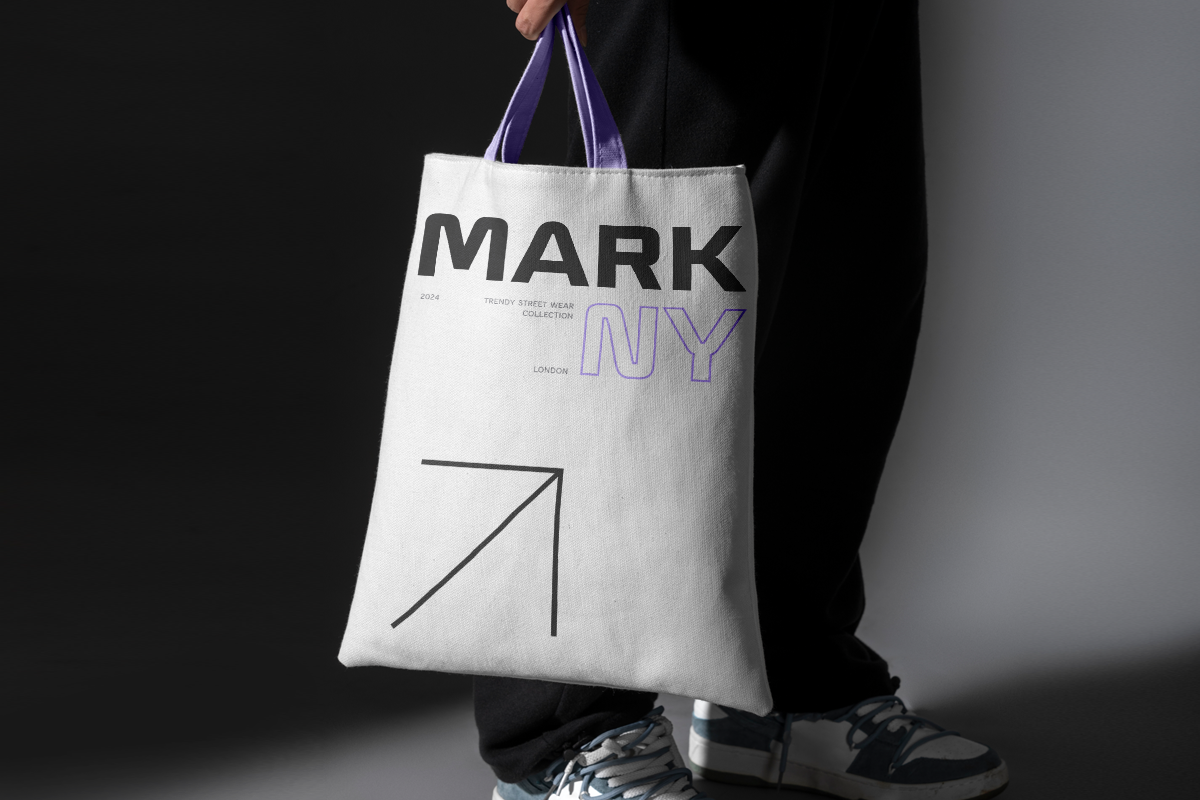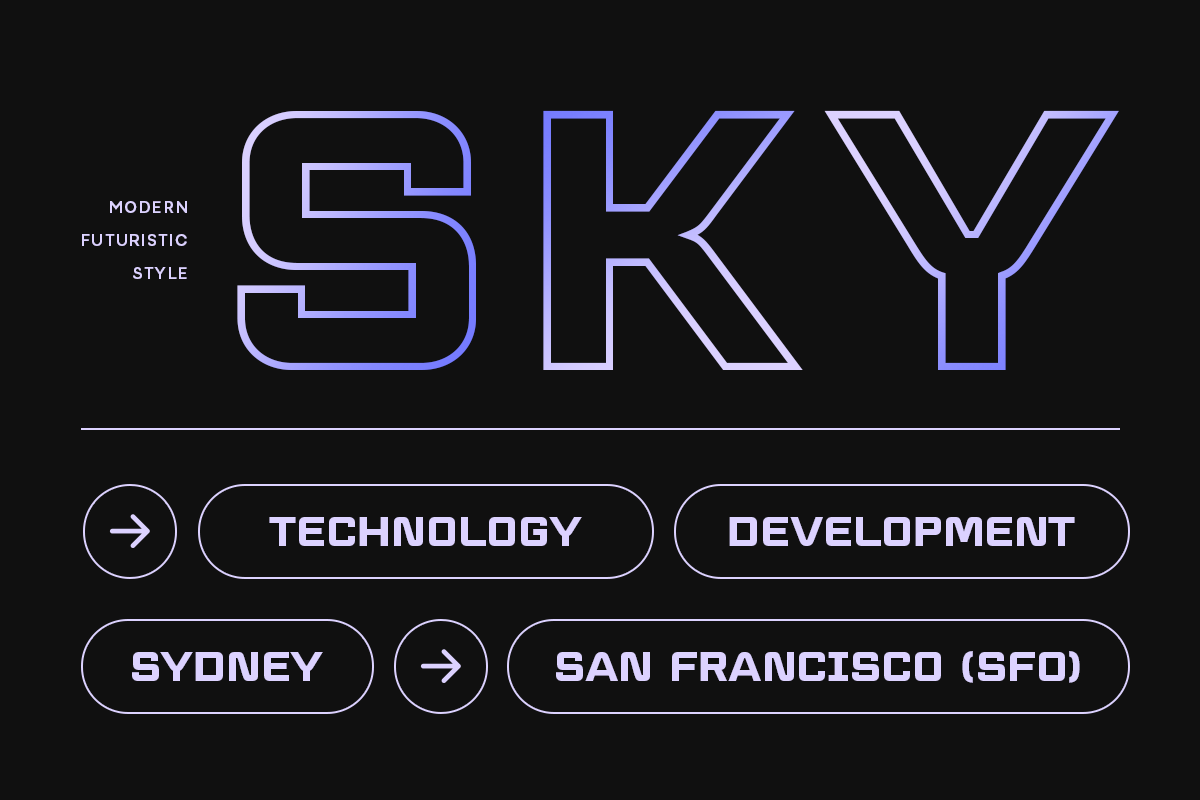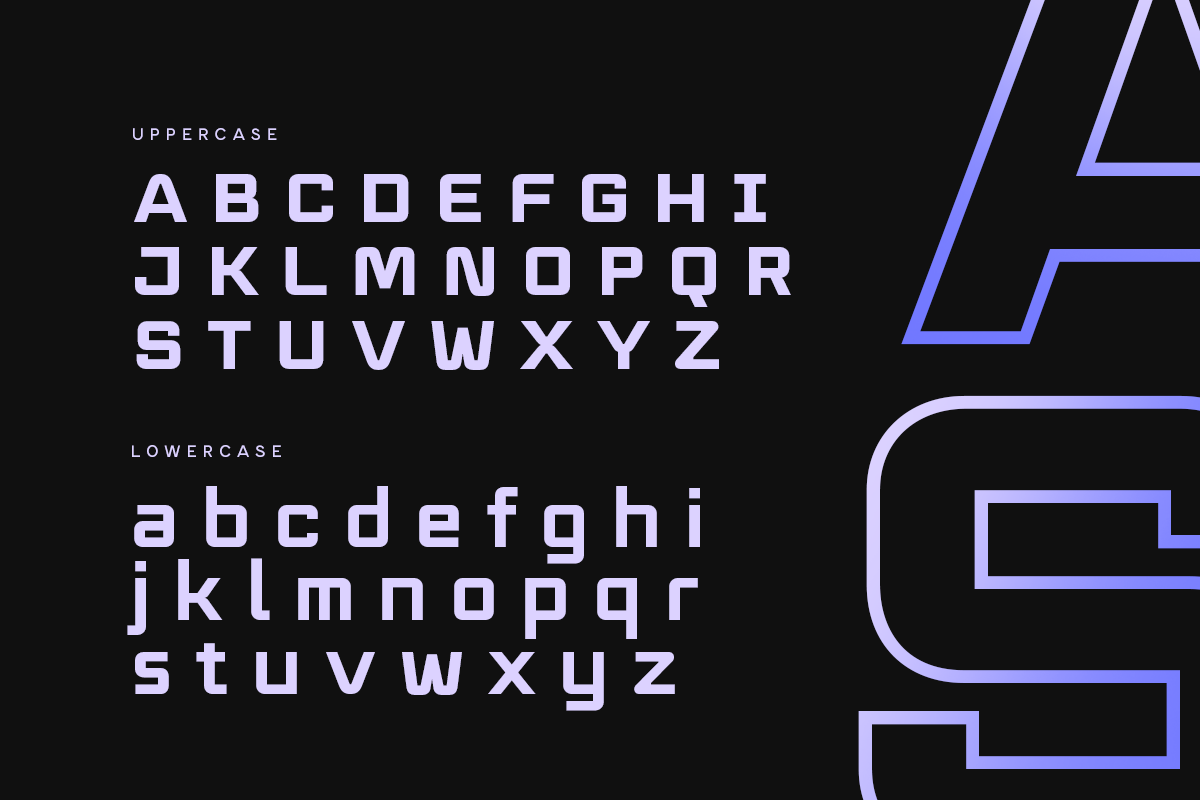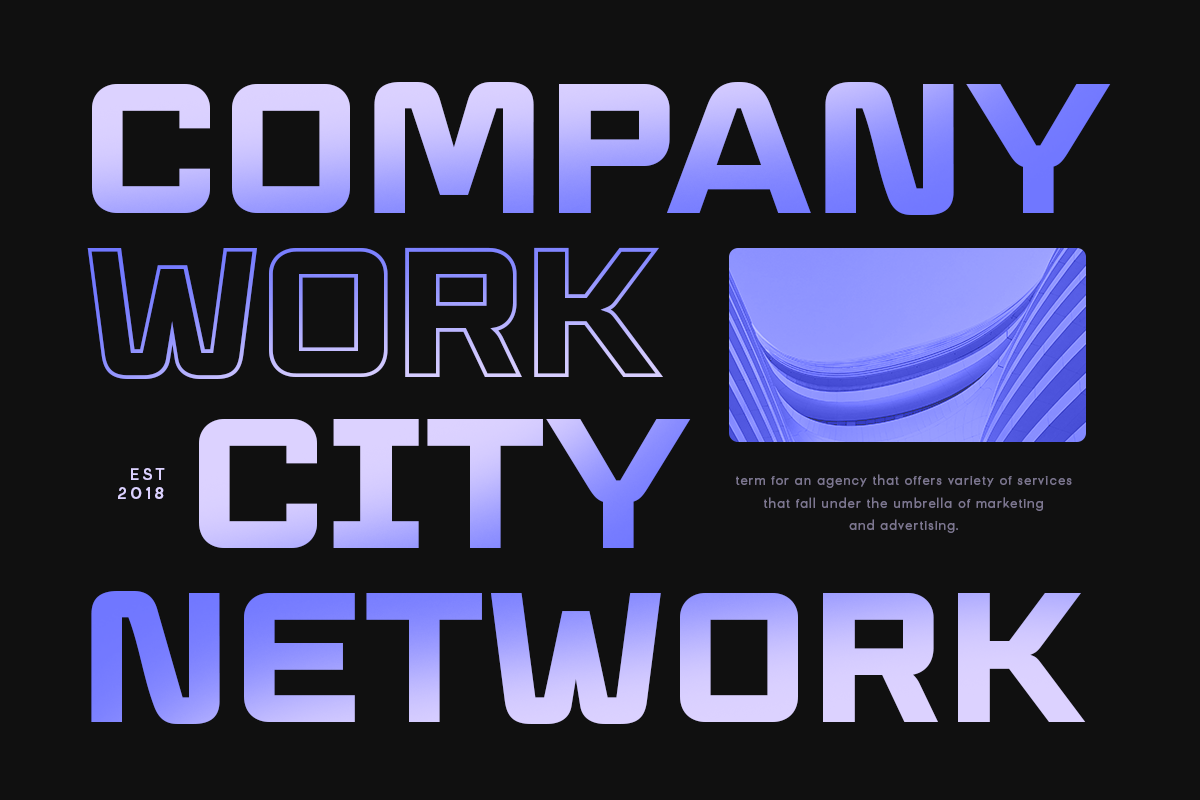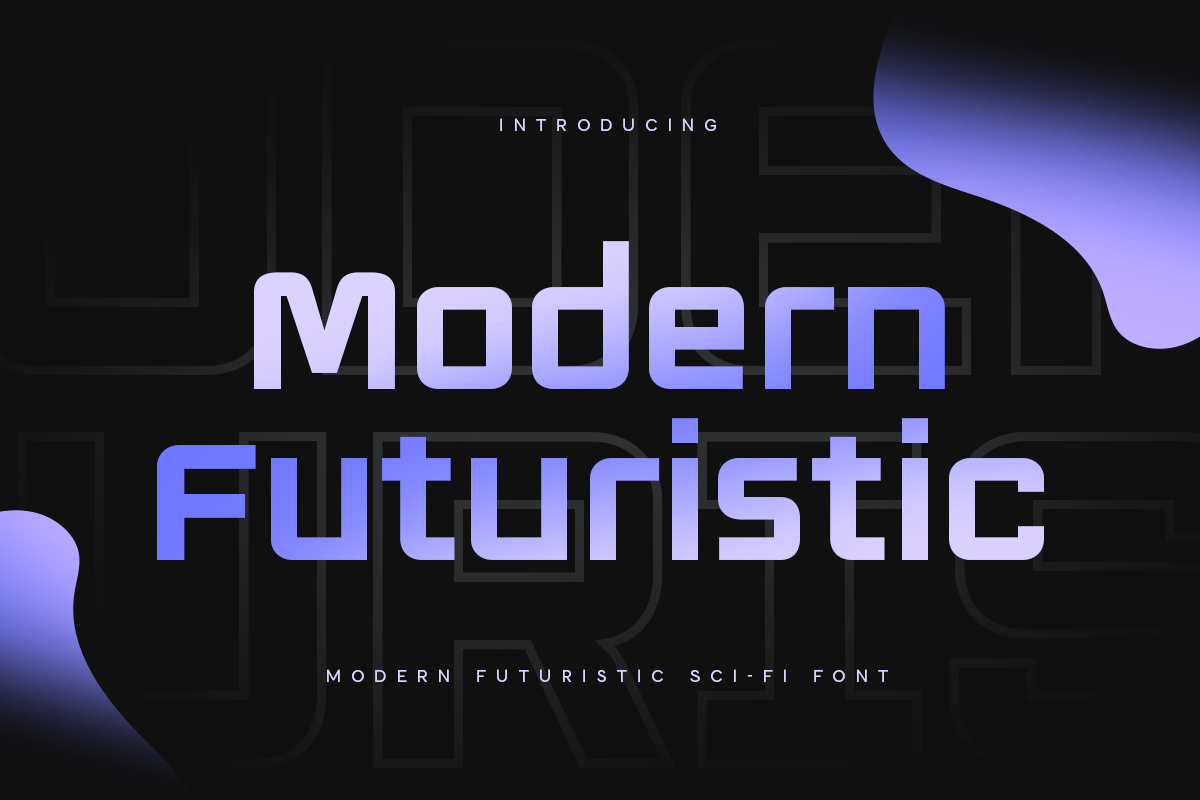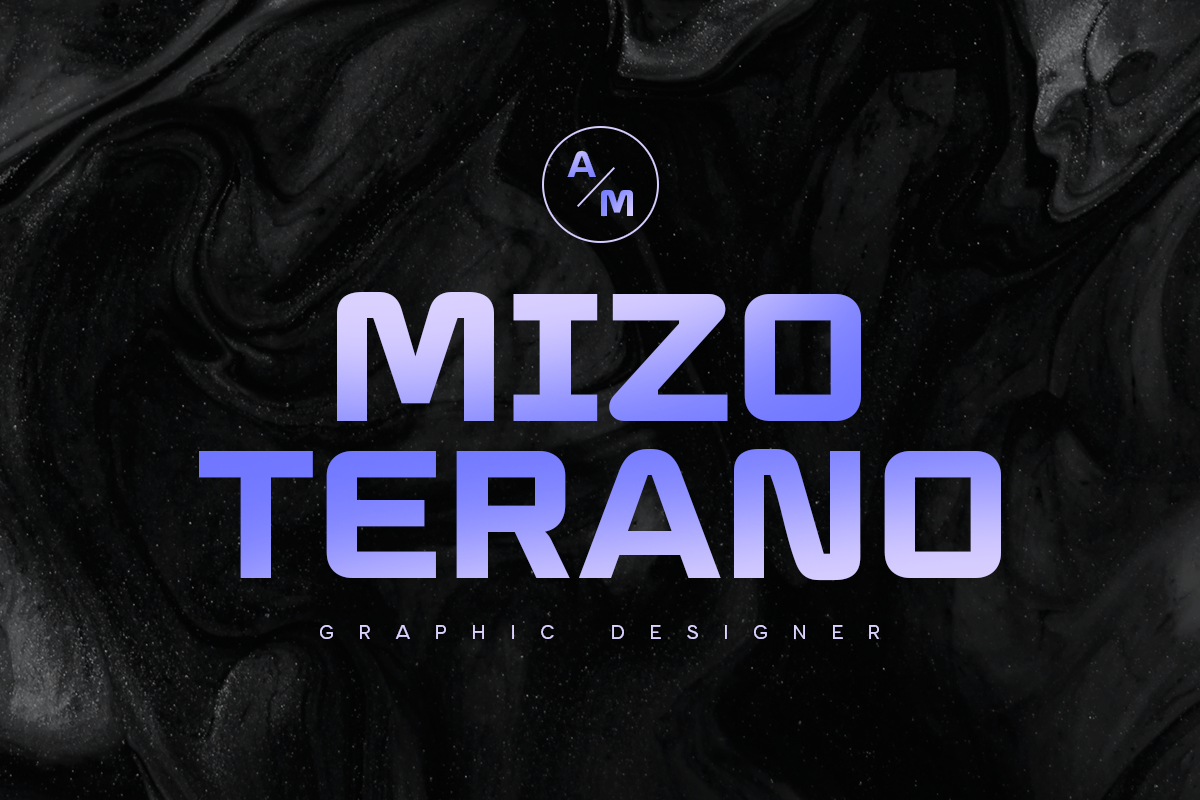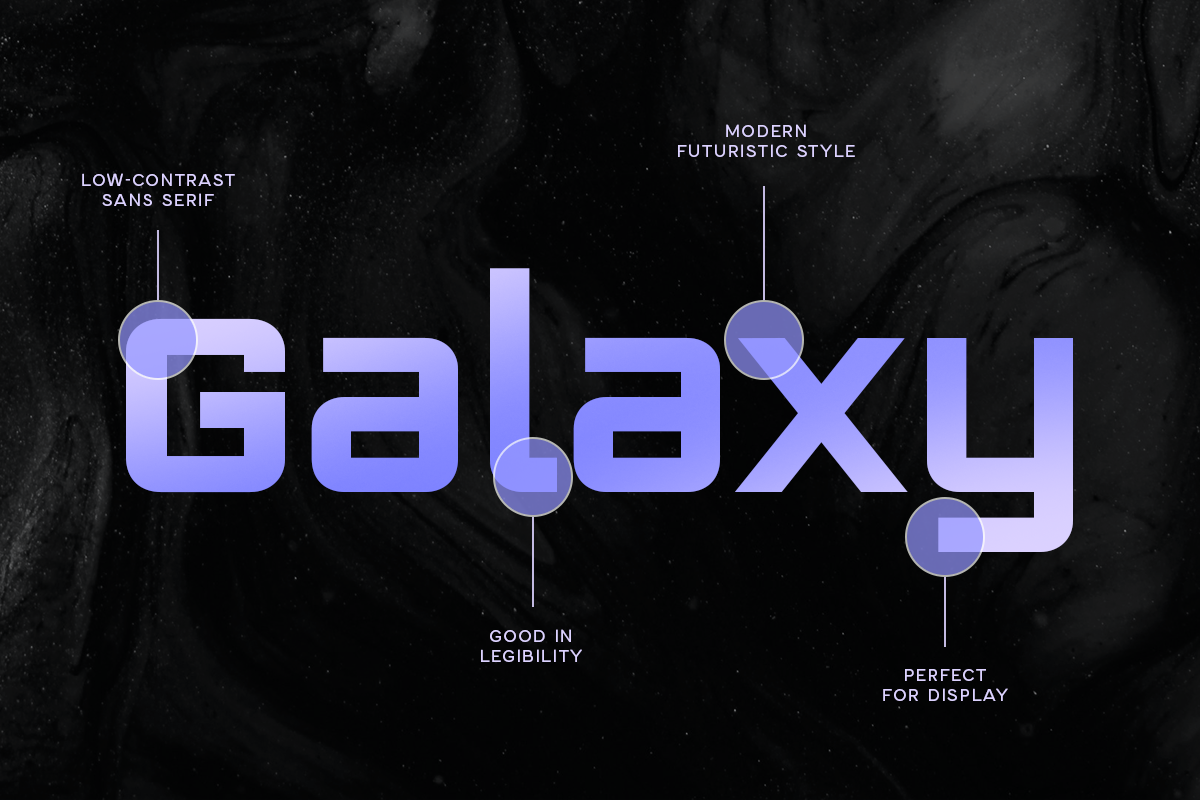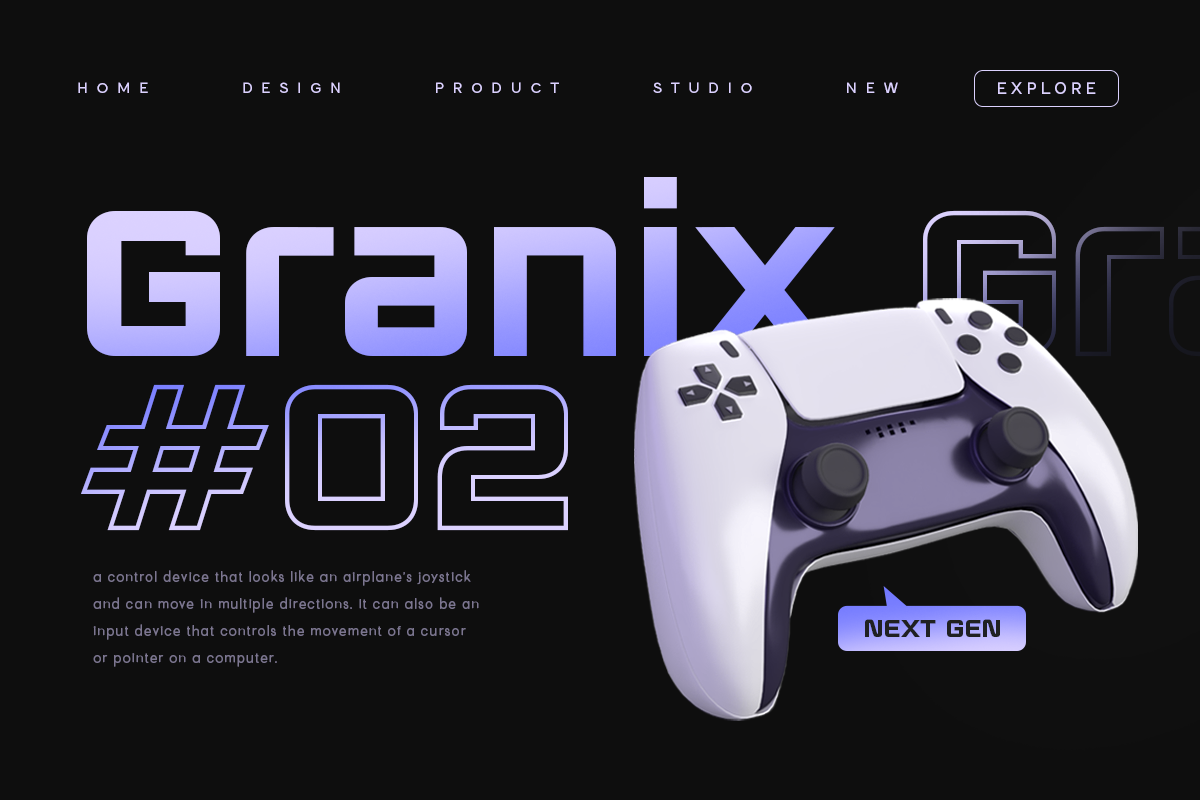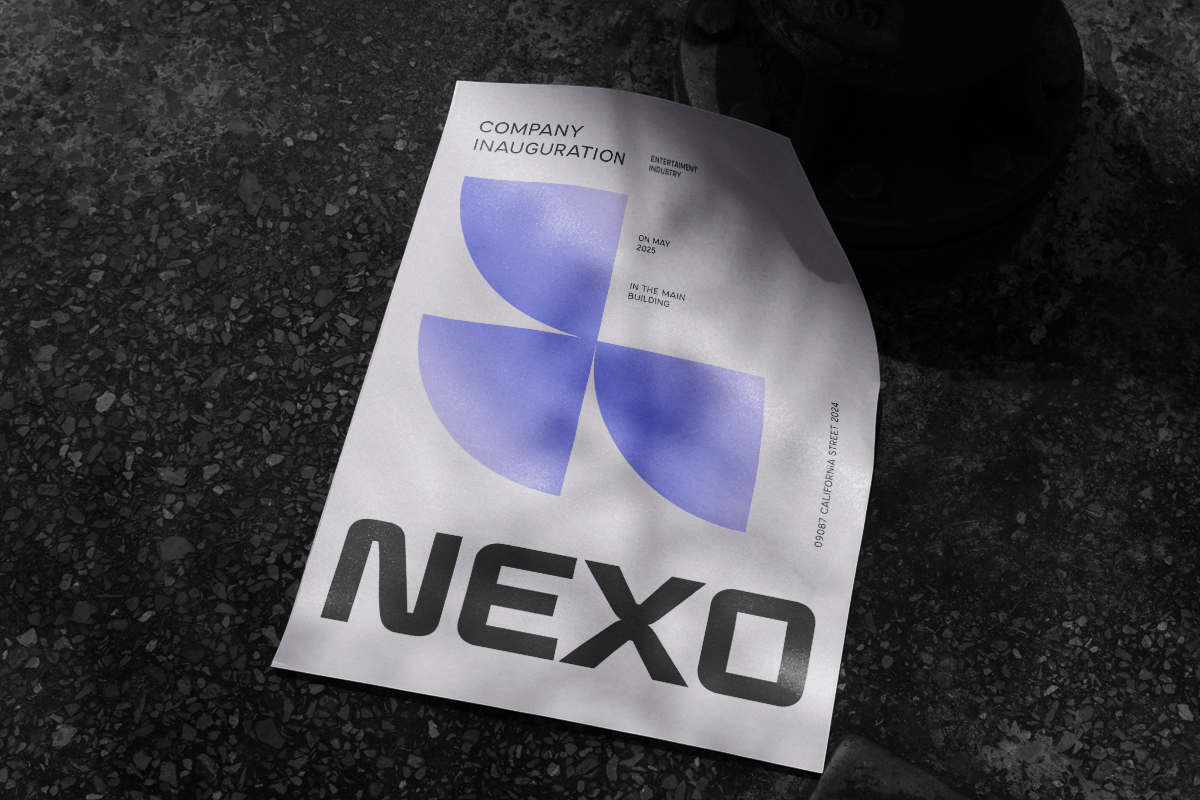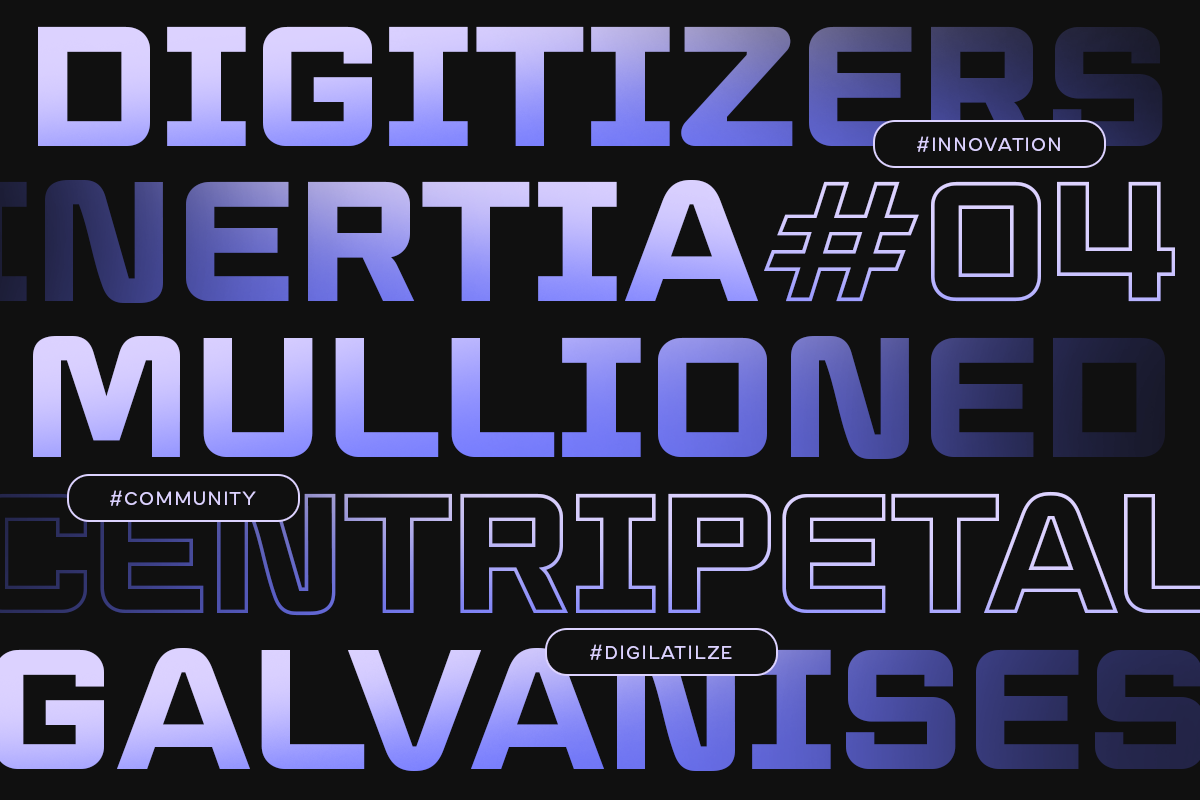
Modern Futuristic - Scifi Font
Modern Futuristic is a Futuristic Modern Sport Sci-fi font that created special for Sci-fi, Modern, Technology and more stand out typography needs, with extra perfect styles that make your design more Futuristic. It's so perfect to add your style and headline overview for sport, technology, actions, and Sci-fi theme. And specially for this font, we crafted for bold style and modern feels so enjoy to create any project that will show your main idea out.
- Futuristic characters prepared to get creative alternatives in Techno theme
- Ready with Uppercase and Lowercase characters Wish you enjoy our font. :)